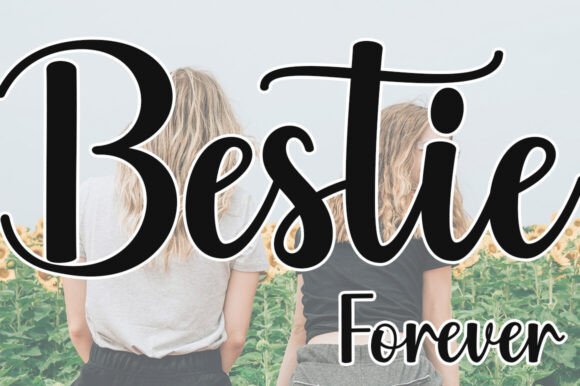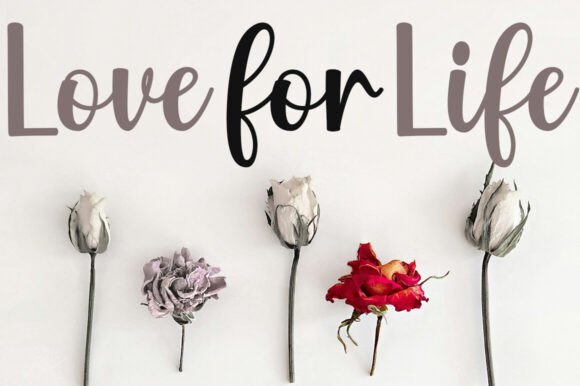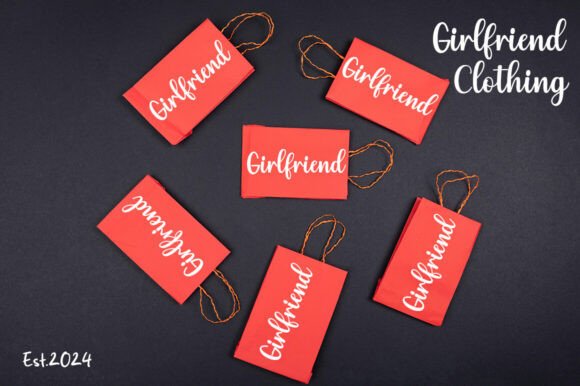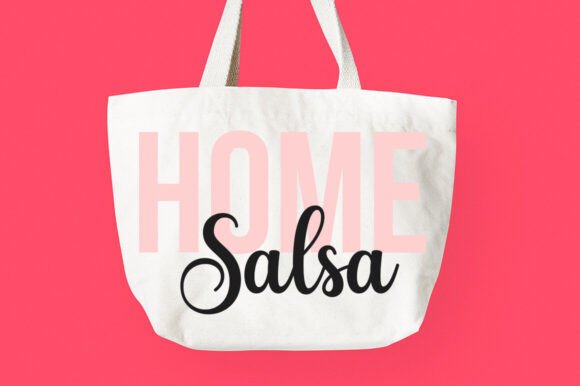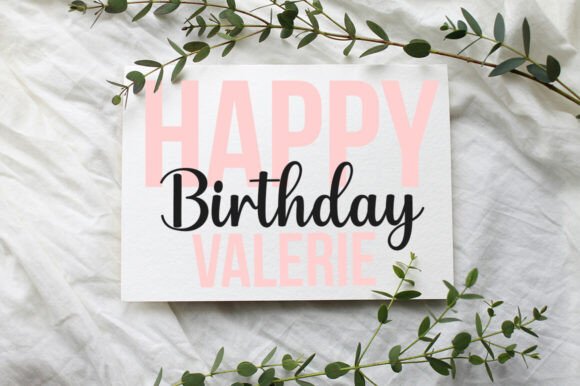
Discover the Enchanting World of Cutesy Font: Elevate Your Designs with Effortless Charm
Welcome to the whimsical realm of Cutesy Script, a beautiful fusion of modern calligraphy and carefree elegance. This captivating font is designed to infuse your projects with a touch of playfulness and sophistication, making it an ideal choice for designers and crafters seeking to add a dash of personality to their work.
The Allure of Cutesy Script
Cutesy Script boasts a unique blend of casual charm and refined beauty, emitting an irresistible allure that captivates audiences. Its delightful swashes and fluid strokes bring a sense of movement and energy to your designs, transforming them into visually stunning pieces of art. Whether you’re crafting logos, product wraps, wedding invitations, or brand identities, this versatile font is sure to make a lasting impression.
Endless Applications for Cutesy Script
One of the most significant advantages of Cutesy Script is its incredible versatility. This font can be used across a wide range of applications, including:
- Logos and Brand Identities: Create memorable and eye-catching logos that reflect your brand’s personality and values.
- Product Wraps and Packaging: Add a touch of elegance and sophistication to your product designs, making them stand out on store shelves.
- Wedding Invitations and Stationery: Impress your guests with beautifully designed wedding invitations and stationery that exude romance and whimsy.
- Signage and Labels: Elevate your signage and labels with Cutesy Script’s effortless charm, making them perfect for businesses, events, or personal projects.
- Book Covers and Posters: Transform your book covers and posters into stunning works of art that capture readers’ attention and imagination.
Adding Elegance to Your Designs
Cutesy Script’s exquisite style and diverse applications make it an ideal choice for designers and crafters seeking to add a touch of sophistication to their work. With this font, you can:
- Enhance Your Typography: Mix and match Cutesy Script with other fonts to create visually appealing typography that adds depth and interest to your designs.
- Create Custom Quotes and Graphics: Use Cutesy Script to craft beautiful quotes, graphics, and illustrations that showcase your creativity and style.
- Develop Unique Brand Voices: Establish a consistent brand voice and aesthetic with Cutesy Script, helping you to build a strong brand identity.
Why Choose Cutesy Script?
With so many fonts available, why choose Cutesy Script? Here are just a few reasons why this font stands out:
- Unique and Eye-Catching: Cutesy Script’s distinctive style sets it apart from other fonts, ensuring your designs grab attention and leave a lasting impression.
- Versatile and Adaptable: This font can be used across a wide range of applications, making it a valuable addition to your design toolkit.
- Elegant and Refined: Cutesy Script’s effortless charm and sophistication make it perfect for designers and crafters seeking to add a touch of elegance to their work.
| Font Name | Cutesy Font |
| Author | Natural Ink |
In conclusion, Cutesy Script is a captivating font that offers a unique blend of modern calligraphy and carefree elegance. With its delightful swashes, fluid strokes, and incredible versatility, this font is sure to become a staple in your design toolkit. Whether you’re a designer, crafter, or simply someone who appreciates beautiful typography, Cutesy Script is an excellent choice for anyone seeking to add a touch of personality and sophistication to their work.